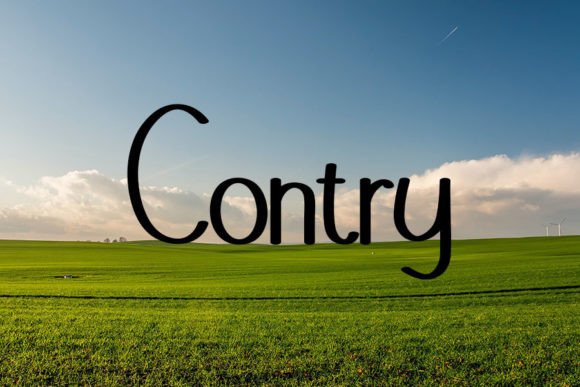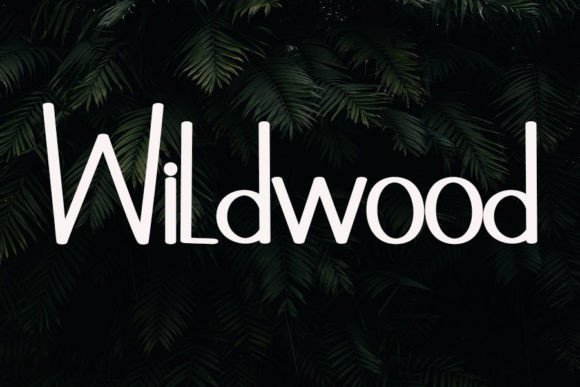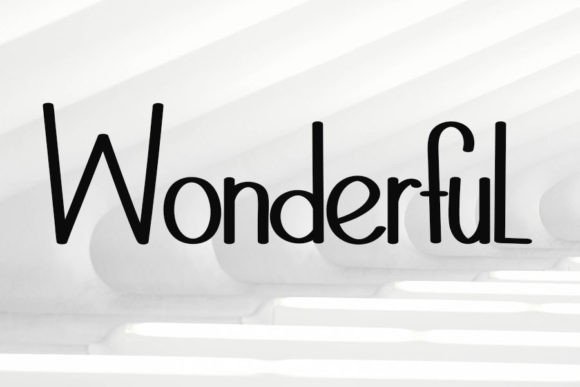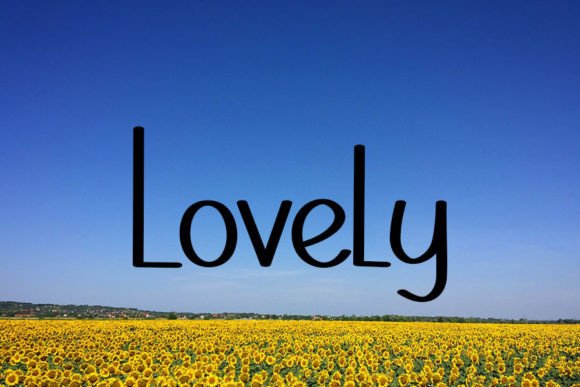
Introducing Impossible Font
The Impossible Font is a neat and beautiful handwritten typeface known for its elegant touch and versatility in enhancing a variety of design projects. This font is celebrated for its distinct and timeless style, making it a valuable asset for designers seeking to create spectacular and visually appealing designs. Its handwritten quality adds a touch of authenticity and personalization to your creative projects.
Why Choose This Typeface?
- Elegant and Timeless: Impossible adds sophistication to your designs, making it suitable for logo design, branding, social media graphics, stationery, invitations, and more.
- Versatile Usage: This font provides a visually captivating choice for various creative endeavors, allowing you to infuse your designs with elegance and authenticity.
Applications of Impossible
- Logos: Use this font to create elegant logos that capture attention.
- Branding: Enhance your brand identity with a script style that conveys timeless elegance.
- Invitations: Perfect for adding a stylish script aesthetic to invitations and other creative projects.
The Impact of Using Impossible
This font elevates your designs by making them visually captivating and memorable. It becomes a reliable tool for designers seeking to create projects that stand out with elegance. Its balanced form ensures your designs are both refined and captivating.
The Value It Brings
This typeface excels in combining contemporary design aesthetics with classic elegance. By choosing Impossible, you ensure your designs are not only visually appealing but also sophisticated and unique.
This font is also ideal for various creative projects beyond traditional uses. It can enhance digital designs with its elegant flair, making it suitable for websites, brochures, or mobile interfaces. The Impossible Font adapts well to different screen sizes while maintaining its charm. As design trends evolve, this font remains relevant due to its timeless appeal, balancing style with functionality effectively.